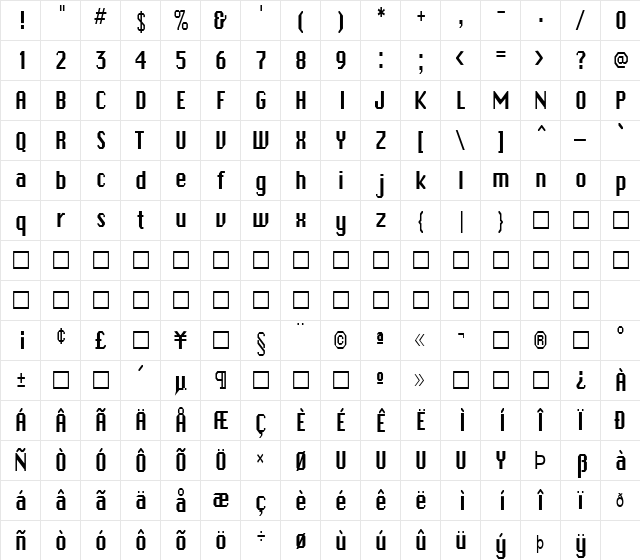
FZ BASIC 45 COND Normal Font Preview
FZ BASIC 45 COND Normal
Design Context for FZ BASIC 45 COND Typeface
FZ BASIC 45 COND takes a measured approach to typography — its balanced proportions and neutral character make it a reliable workhorse for both digital and print work. The condensed width makes it efficient for tight spaces without sacrificing legibility.